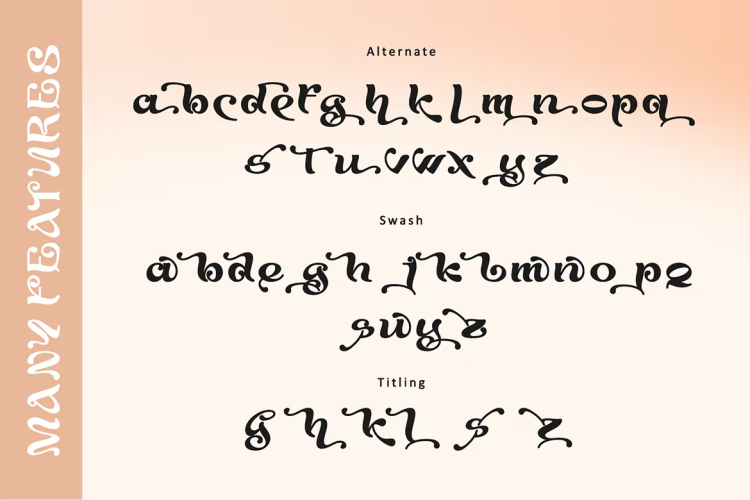
Agaste Font
Agaste is a stylish and elegant serif font. It is suitable for a wide variety of designs due to its unique and cool style. Comes with some alternates and ligatures, so you can combine them to make a perfect typography design. It is ideal for your upcoming projects. Such as luxury logo and branding, classy editorial design, magazines, Packaging, poster, movie, headlines, magazine, promotions, art gallery branding, and more. This font is PUA encoded, meaning you can access all of the glyphs.
Where Agaste Font works best
Reports, white papers and book interiors hold the eye longer when the text face has real serifs; Agaste Font keeps that rhythm without looking old-fashioned.
Food, spirits and cosmetics brands lean on serif wordmarks to suggest age and care. Agaste Font gives that signal at wordmark size.
Set Agaste Font for the body of an award or a diploma and keep the recipient name in a script; the pairing is what makes a document feel official.
What kind of work does Agaste Font suit?
It sits in the Serif Fonts group and reads as branding, elegant, luxury, serif. That makes it a candidate wherever those qualities help: headings, packaging, social graphics and brand work. Set it at the size you plan to use before deciding.